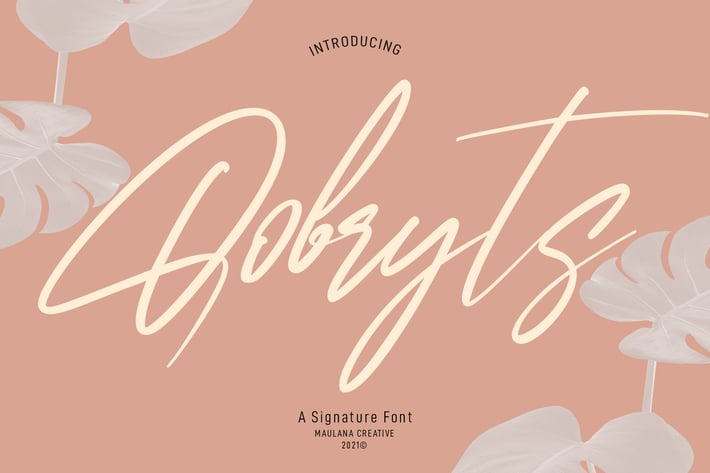
Qobryts Signatue Font
Qobryts is a fancy signature script font. With thin contrast stroke, super slanted and Unique Upper and lower characters with a bit of ligatures. To give you an extra creative work. Qobryts font support multilingual more than 100+ language. This font is good for logo design, Social media, Movie Titles, Books Titles, a short text even a long text letter and good for your secondary text font with sans or serif. Make a stunning work with Qobryts font.